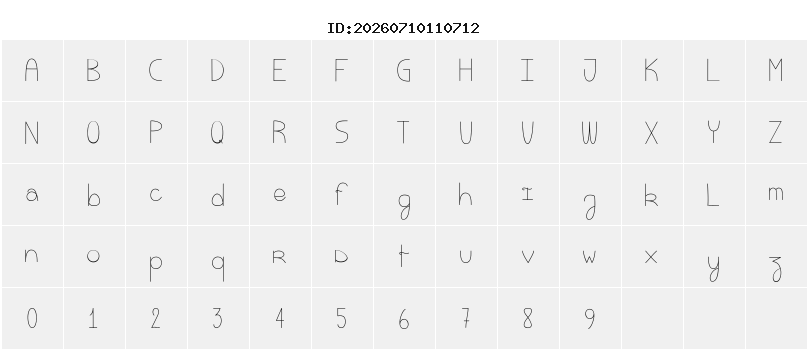
Eat My Cookie Preview
• Font Name: Eat My Cookie
• Full Font Name: Eat My Cookie
• Designer: dcoxy Medina Gregory
• Manufacturer: dcoxy Medina Gregory
About Eat My Cookie.ttf
Eat My Cookie.ttf is a modern, elegant sans-serif font designed for ultimate readability and visual harmony. Perfect for branding, headlines, web design, and print materials.